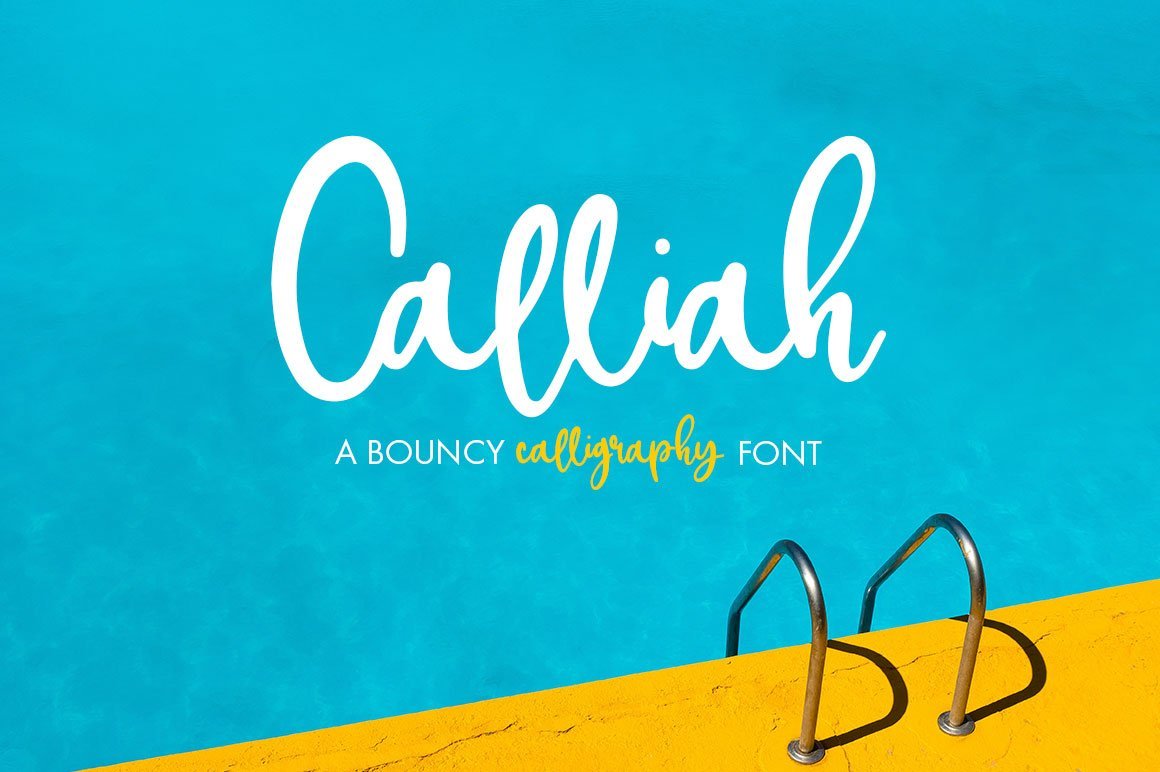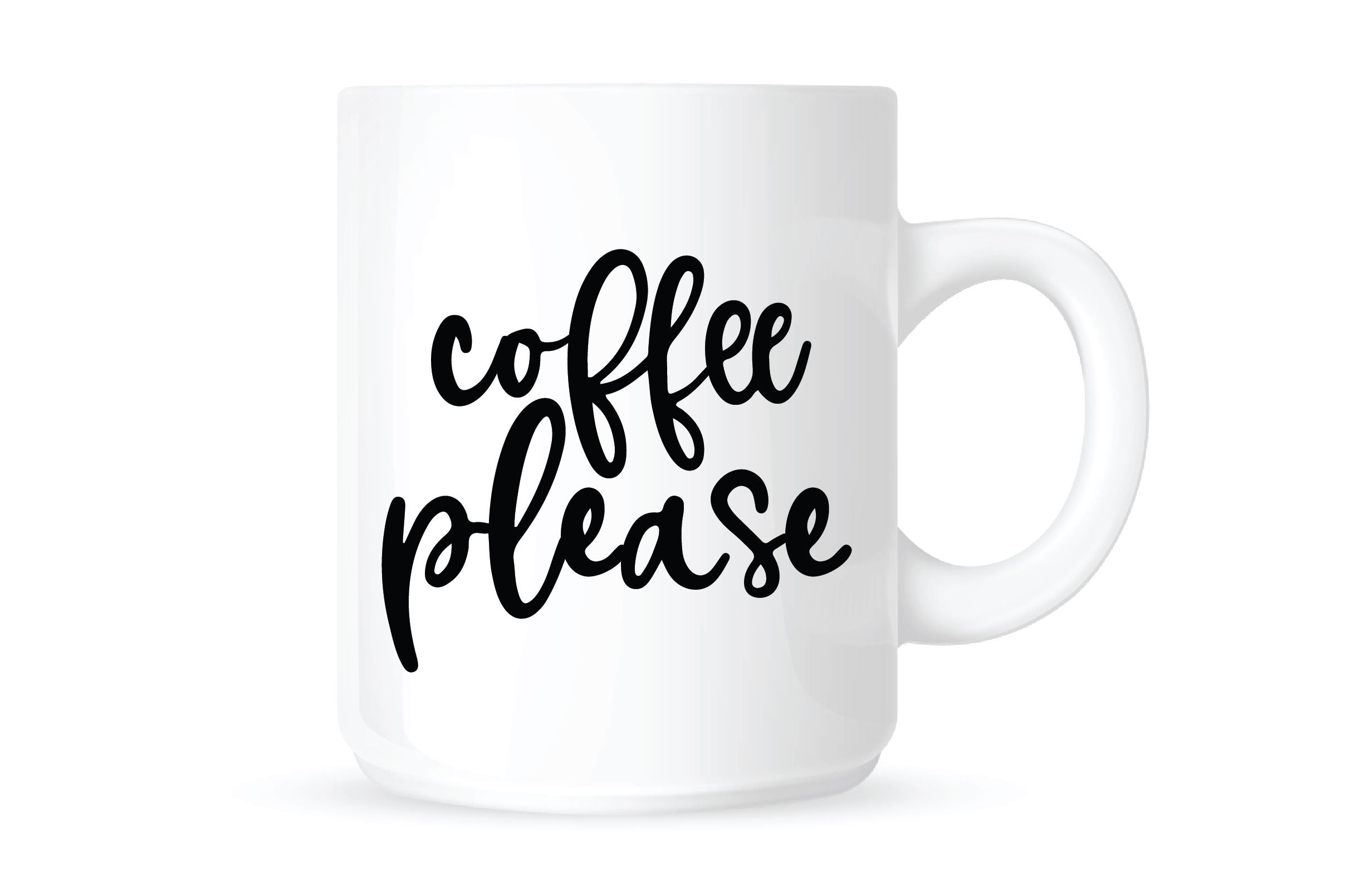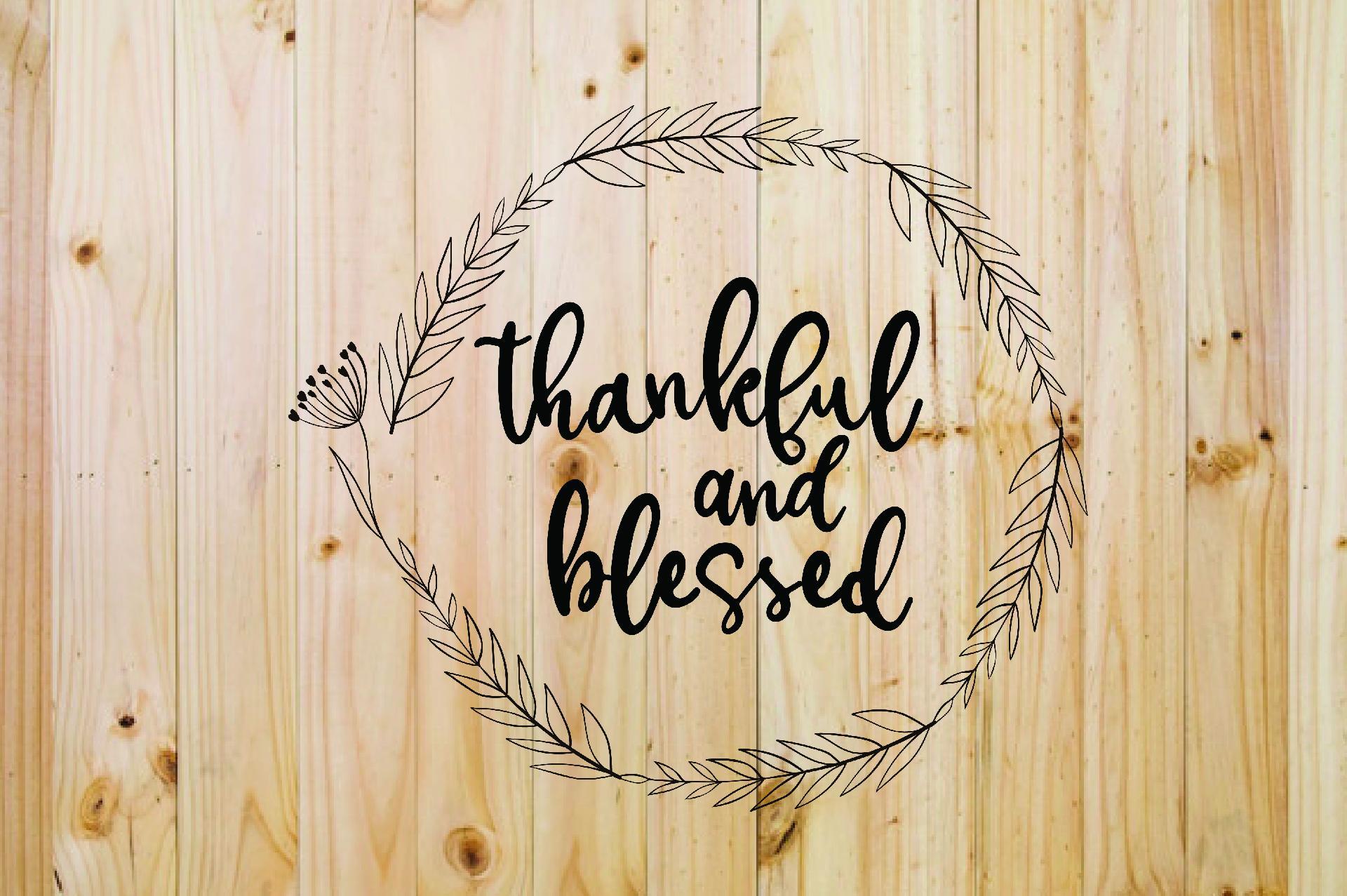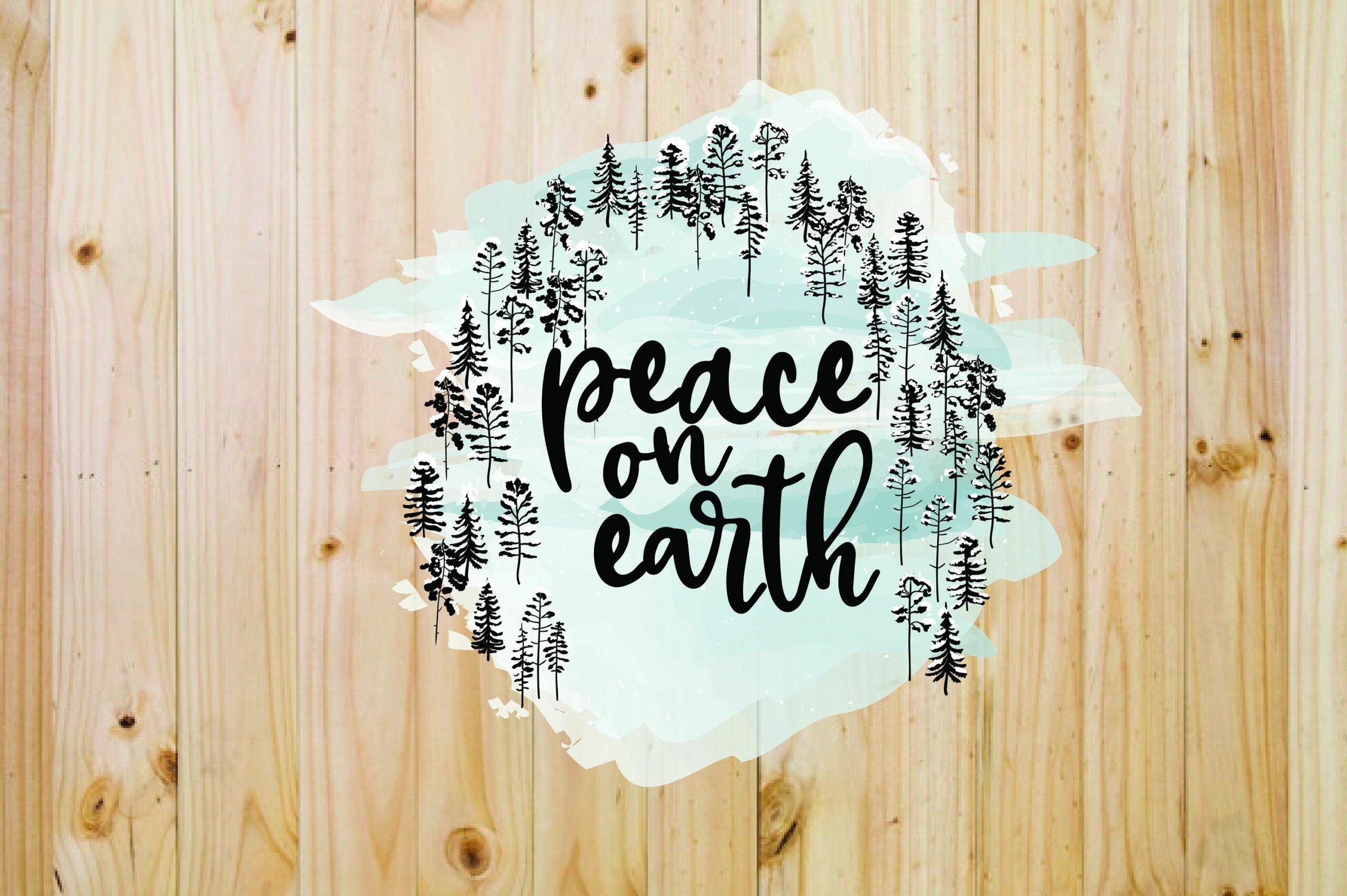
HomeScript FontsCalliah Script Fonts Calliah FacebookXPinterestWhatsApp 1 of 5 ... ... ... ... ... About Calliah A lovely bounce script, Calliah is one of my favorites yet! Includes alternate connecting letters as well! DOWNLOAD NOW People also explored Itty Bitty Baby Font Monogram Ice Cream Font Caligraphy Font Guitar Melody Font Merlyna Font Perfect Bright Font Smoothest Font The Foughe Script Extraordinary Font 225 0 TagsCalliah Previous articleRippelyNext articleNovala LEAVE A REPLY Cancel reply Comment: Please enter your comment! Name:* Please enter your name here Email:* You have entered an incorrect email address! Please enter your email address here Website: Save my name, email, and website in this browser for the next time I comment. Personal Use Free Hiters Personal Use Free Read more about this font Stone Garden Personal Use Free Read more about this font Sunbright Font Personal Use Free Read more about this font Kilsonburg Personal Use Free Read more about this font BLOG Top 10 Handwritten Fonts That Elevate Your Designs Top 10 Handwritten Fonts That Will Elevate Your Designs Handwritten fonts bring a warm, personal touch to every creative project. Whether you're designing logos, invitations,... Elegant Wedding Invitation Fonts – Handwritten & Script Fonts To increase your work productivity, choose the most readable fonts. How to Install and Use Fonts on Windows, macOS, and Web Projects